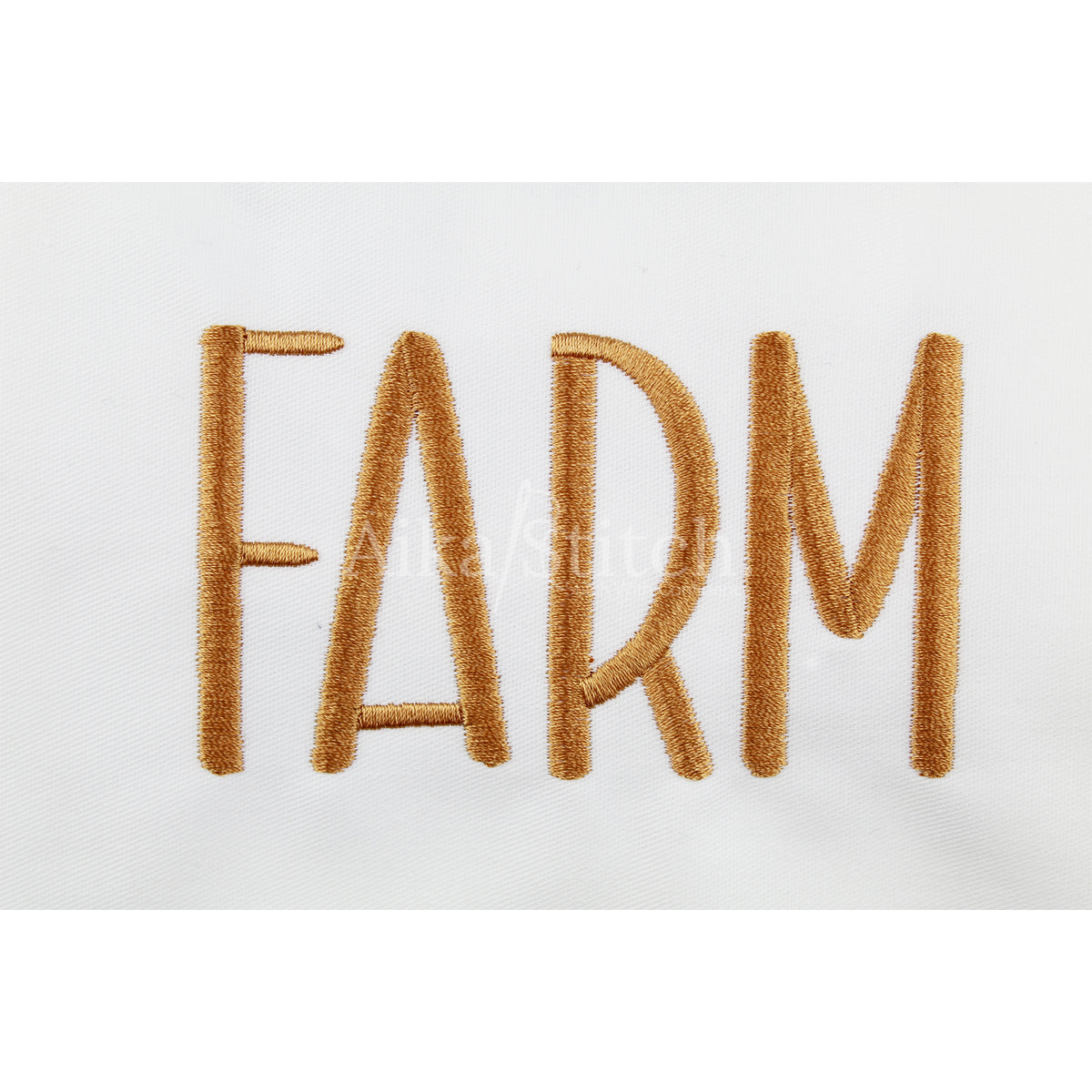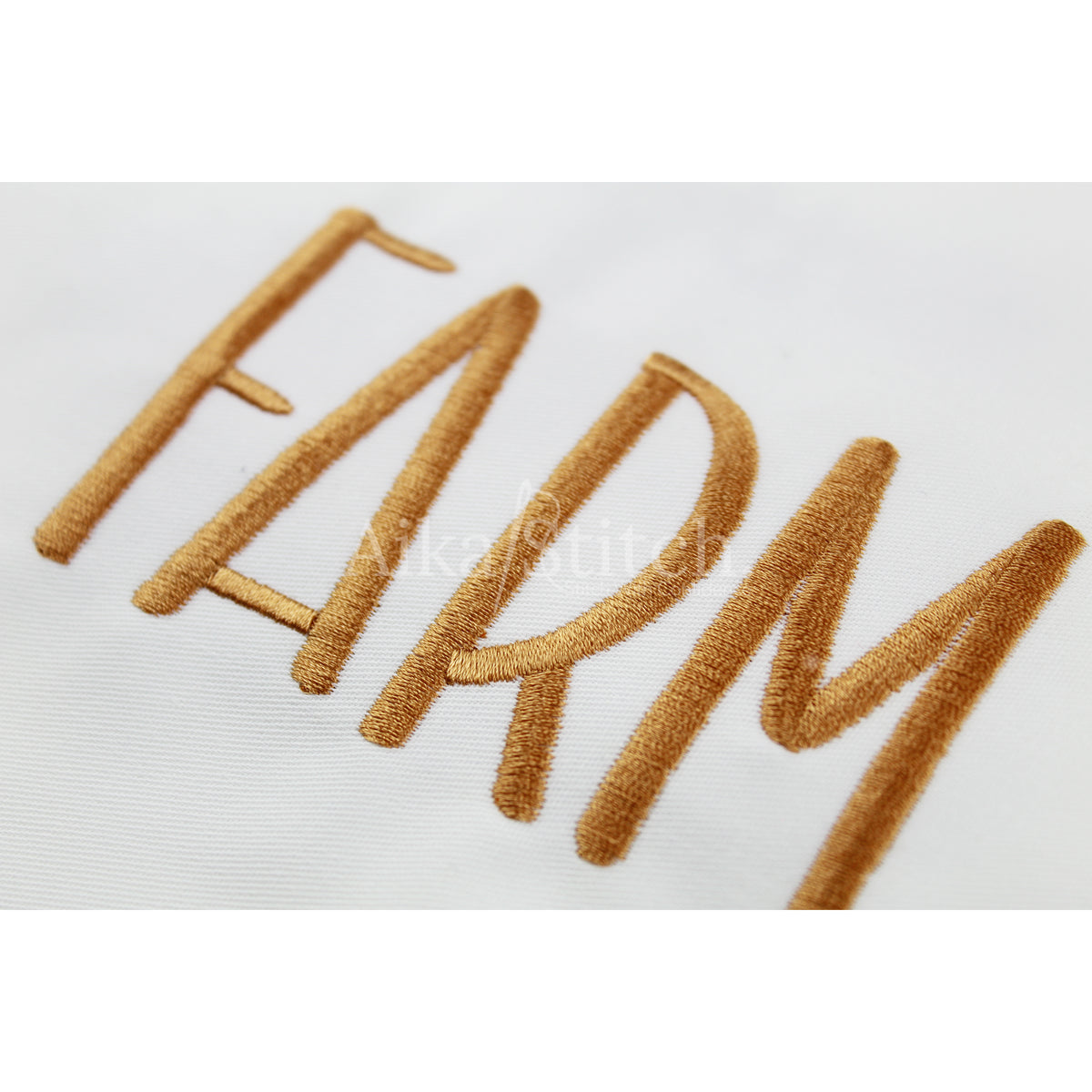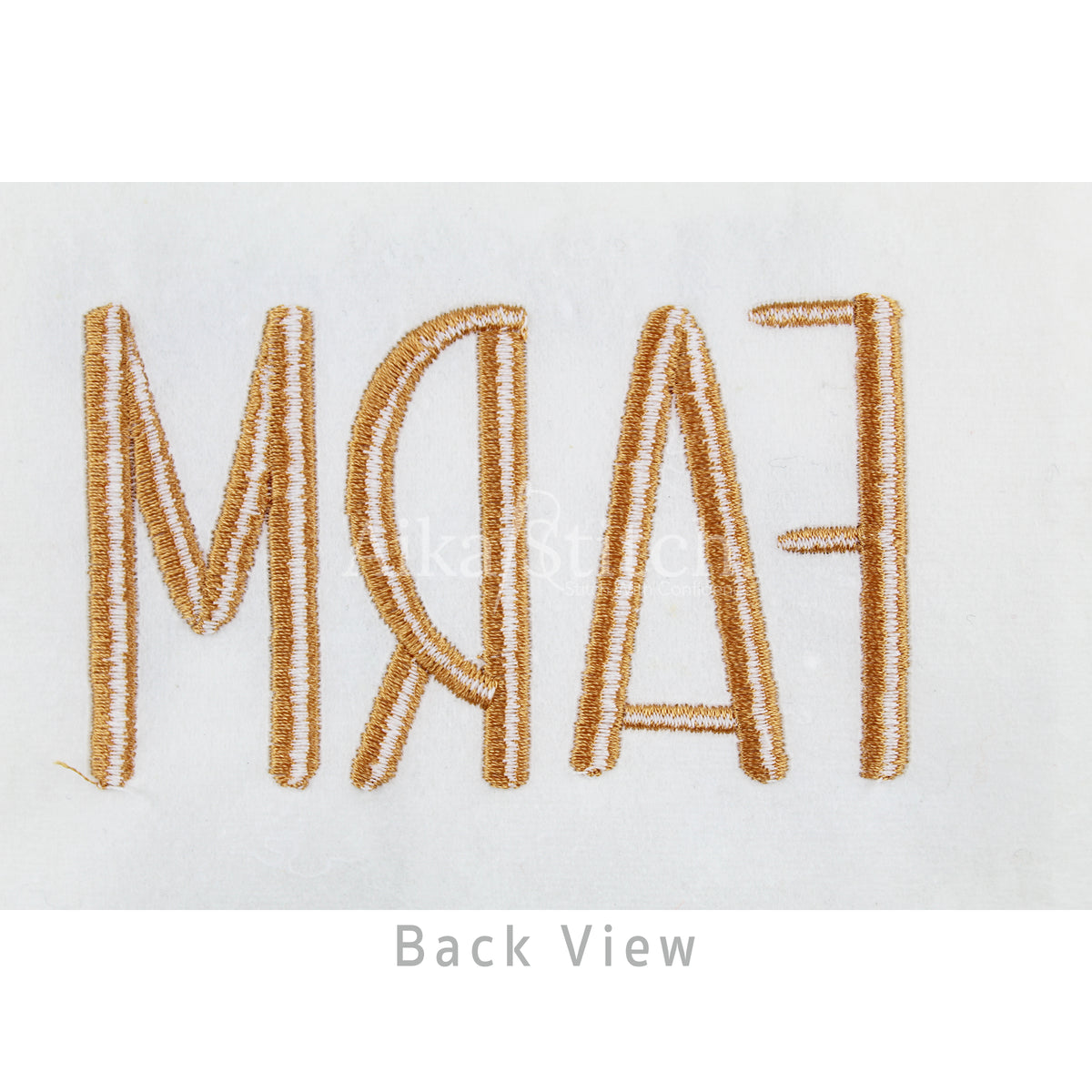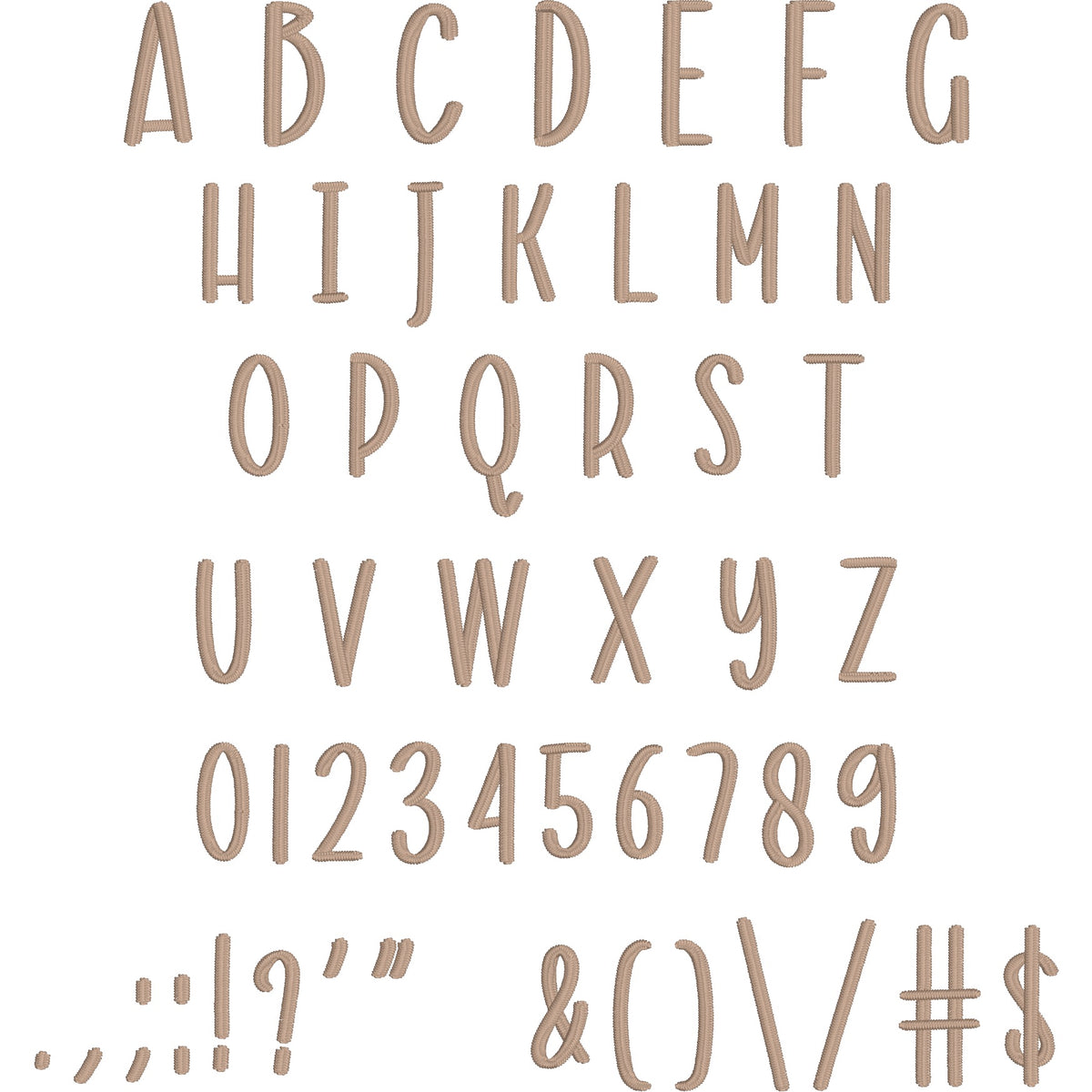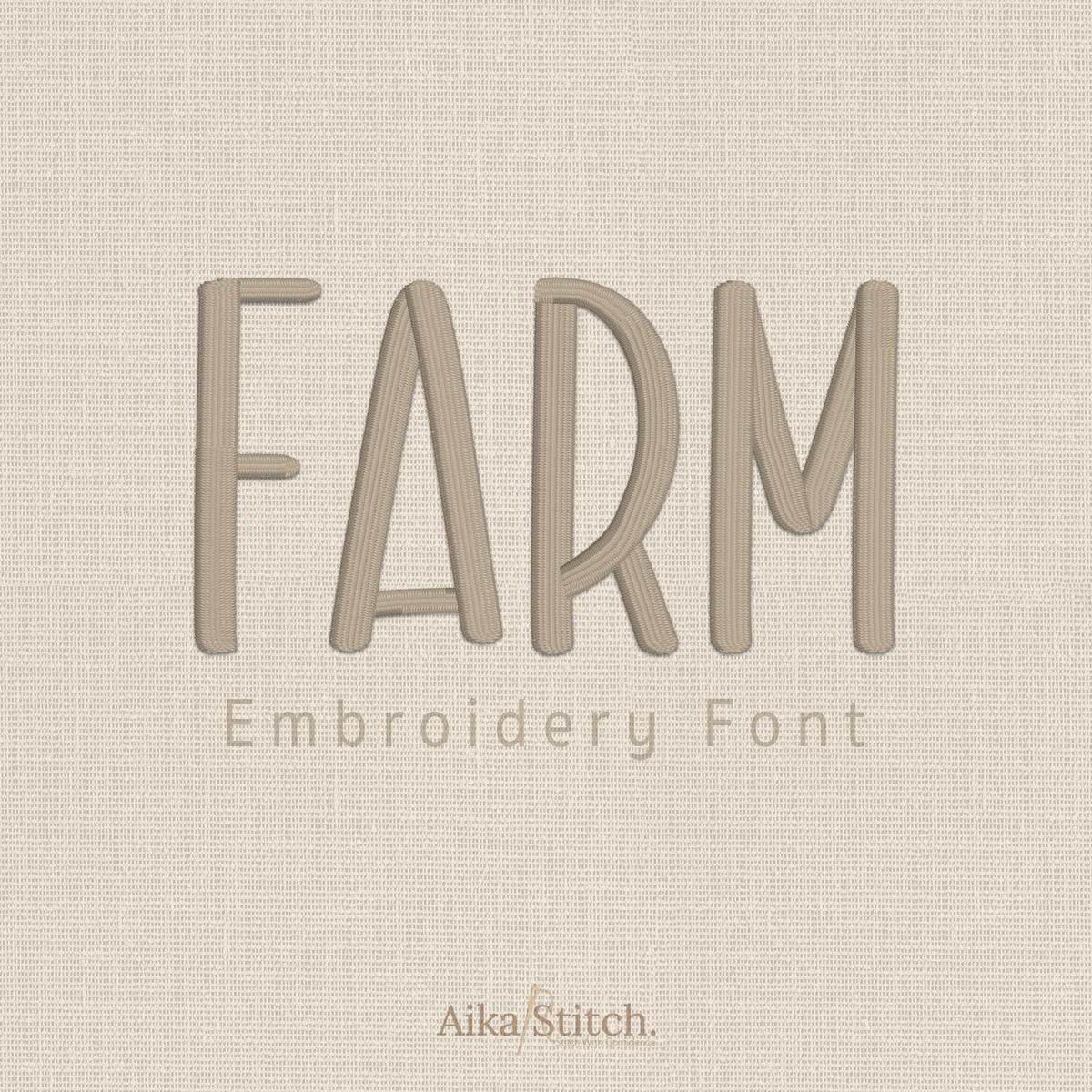
Farm Modern Display Embroidery Font
Farm is a Modern Display machine embroidery font featuring beautiful satin stitch lettering. Perfect for shirts, towels, hats, baby gifts, monograms, and small business embroidery projects.